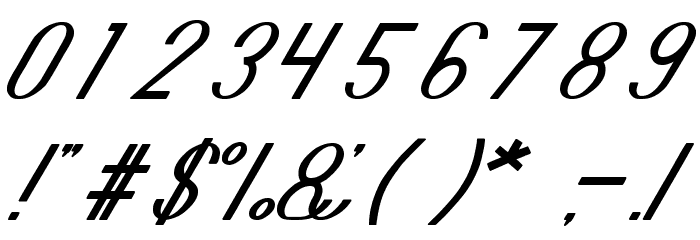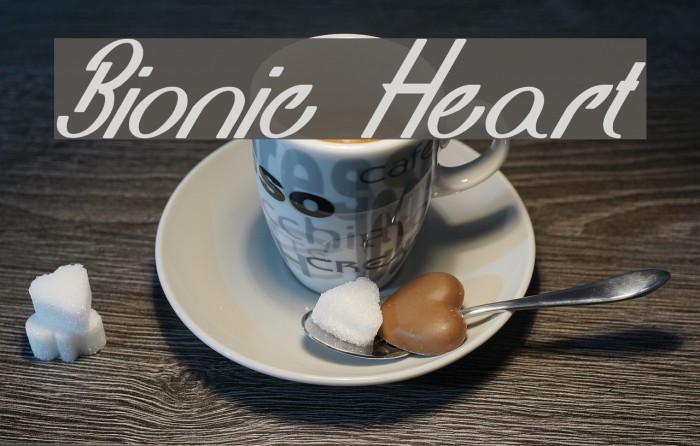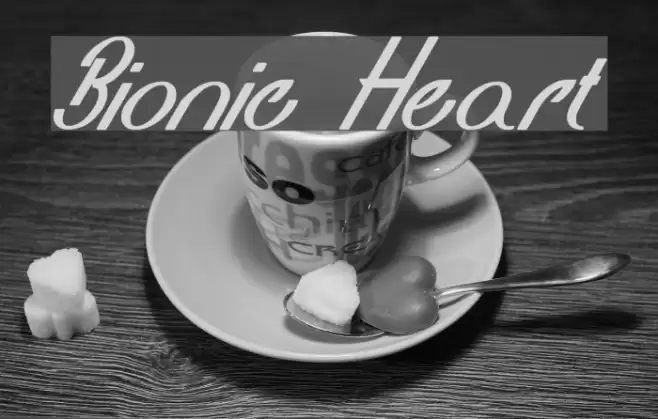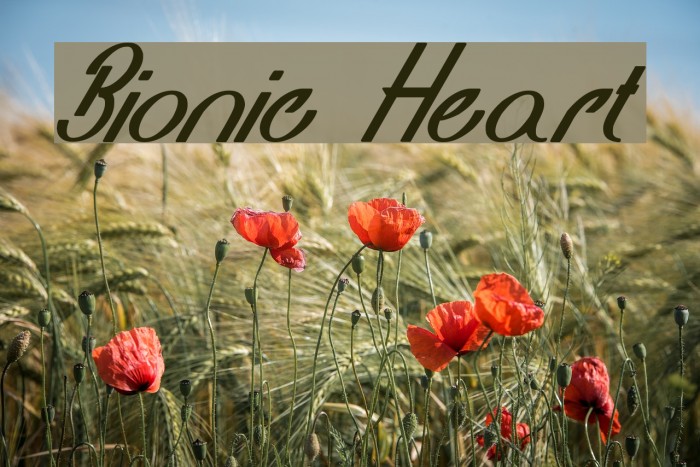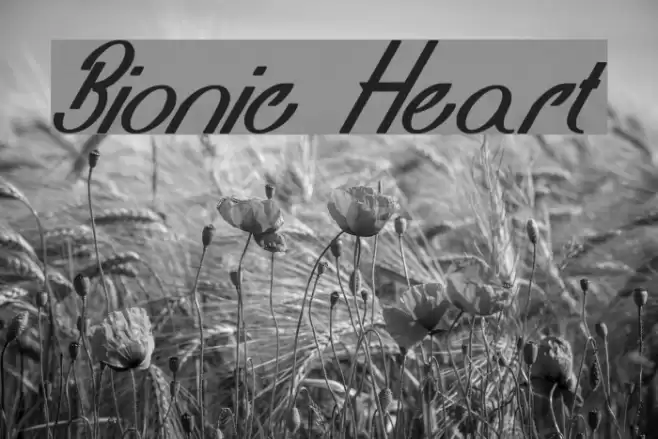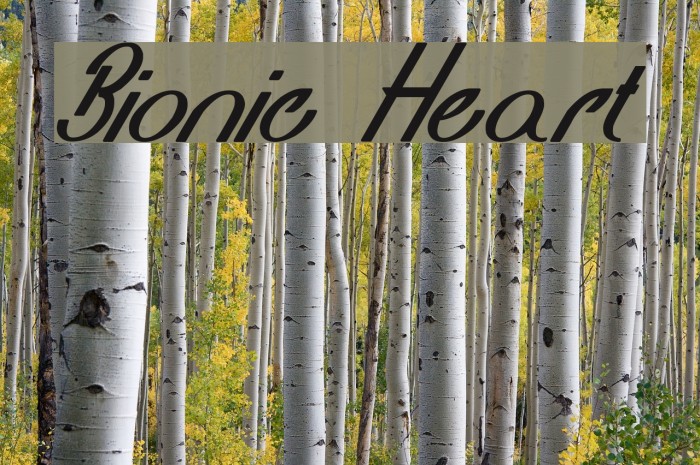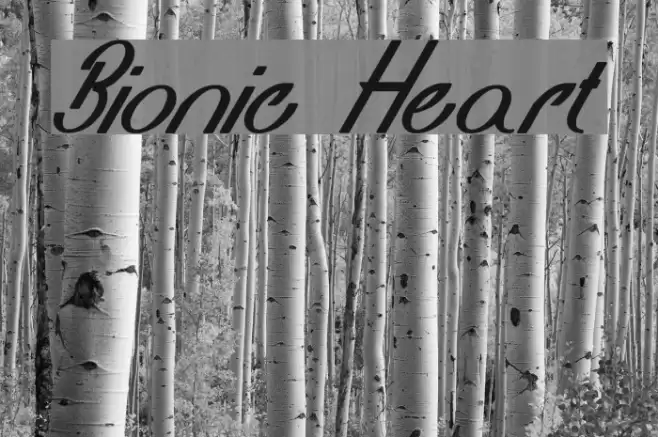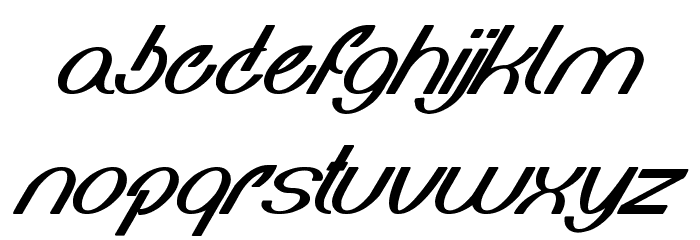
Bionic Heart Font
Bionic Heart Description
This font features a sleek, futuristic design with a cursive flair, characterized by smooth, flowing lines and a slight slant to the right. The uppercase letters are bold and dynamic, with a consistent stroke width that gives a sense of uniformity and balance. The lowercase letters maintain the same fluidity, offering a seamless transition between characters. Numbers and special characters are crafted with the same attention to detail, ensuring readability and style. The overall aesthetic is modern and stylish, making it suitable for a variety of creative applications.
A sleek, futuristic cursive font with smooth, flowing lines and a modern aesthetic from Uncategorized fonts.